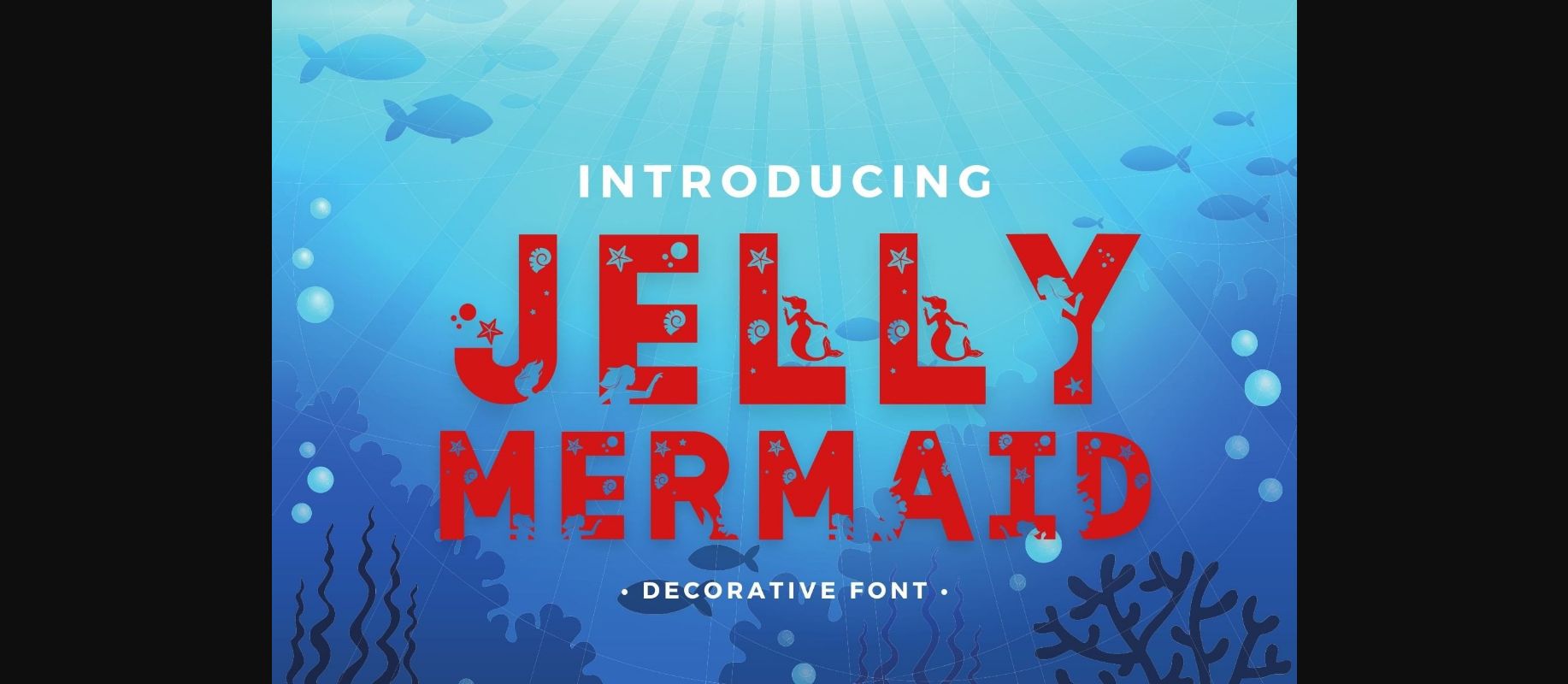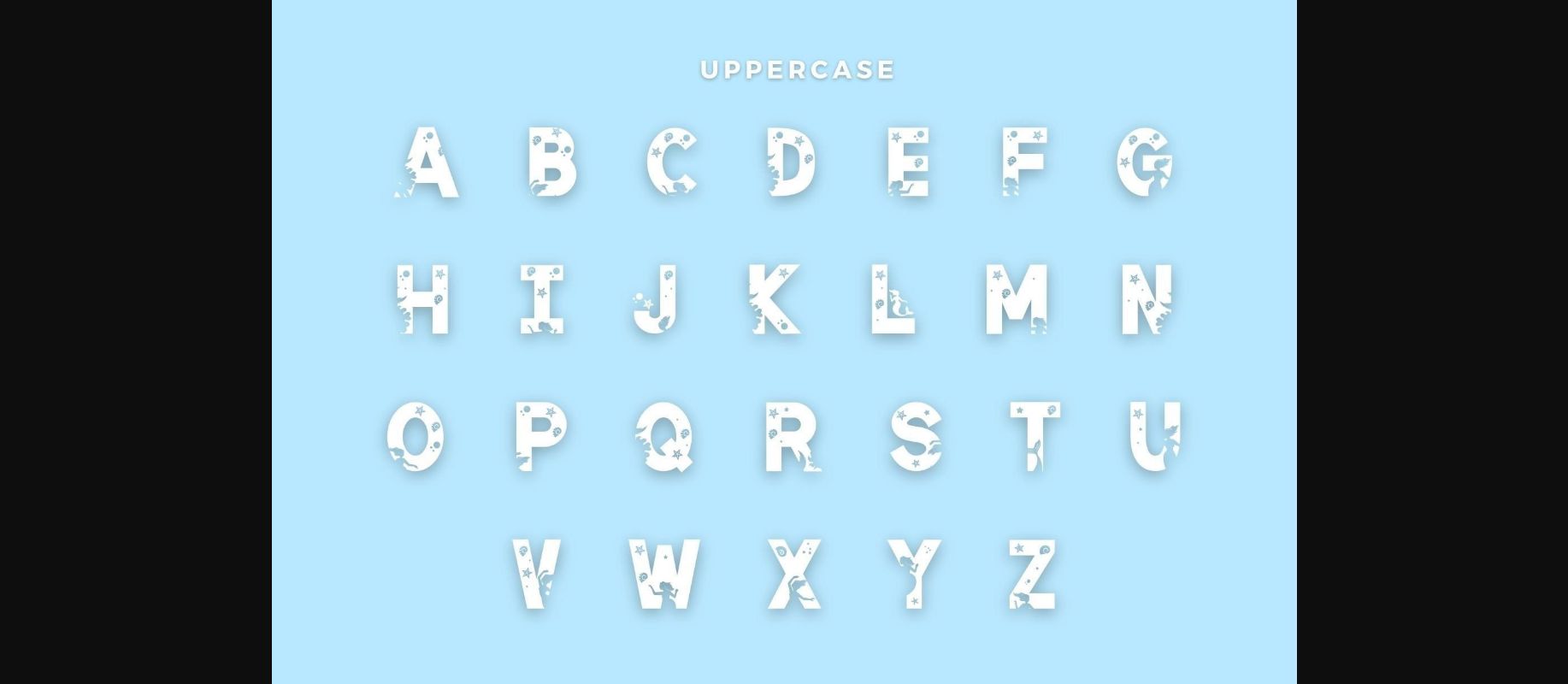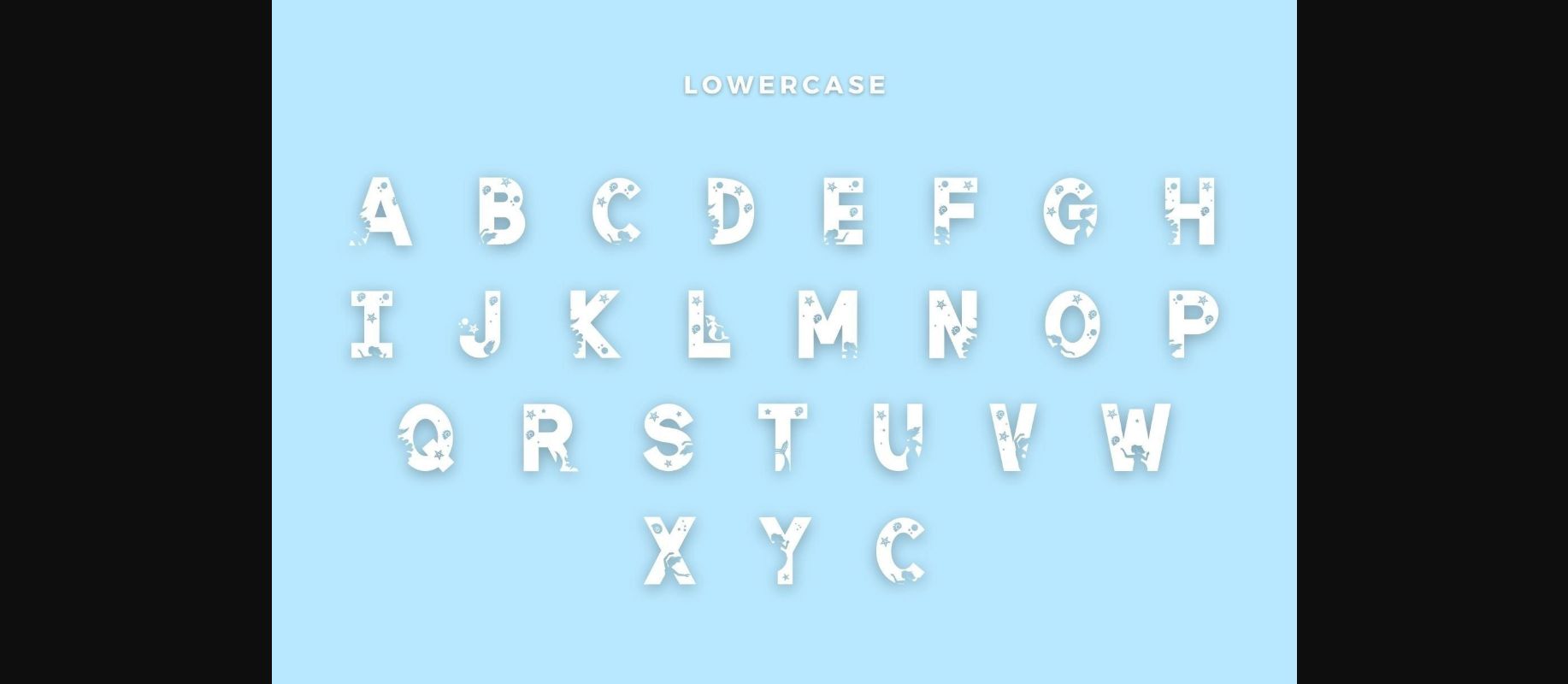
About Jelly Mermaid Font
Jelly Mermaid is a fun and unique decorative font. It embodies playfulness and authenticity and is the perfect choice for various projects, such as blog posts, logos, branding, ads, invitations, greeting cards, planners, photo albums, decorations, and much more. Add it to any of your designs, and enjoy the results!